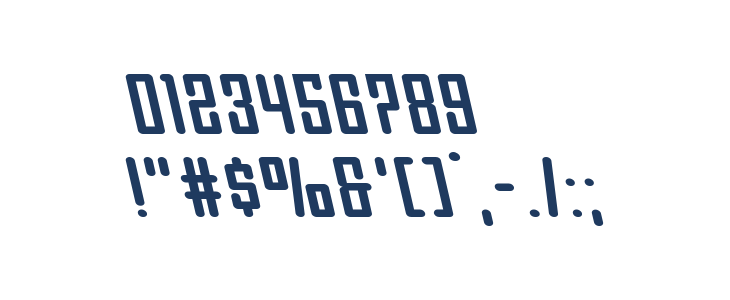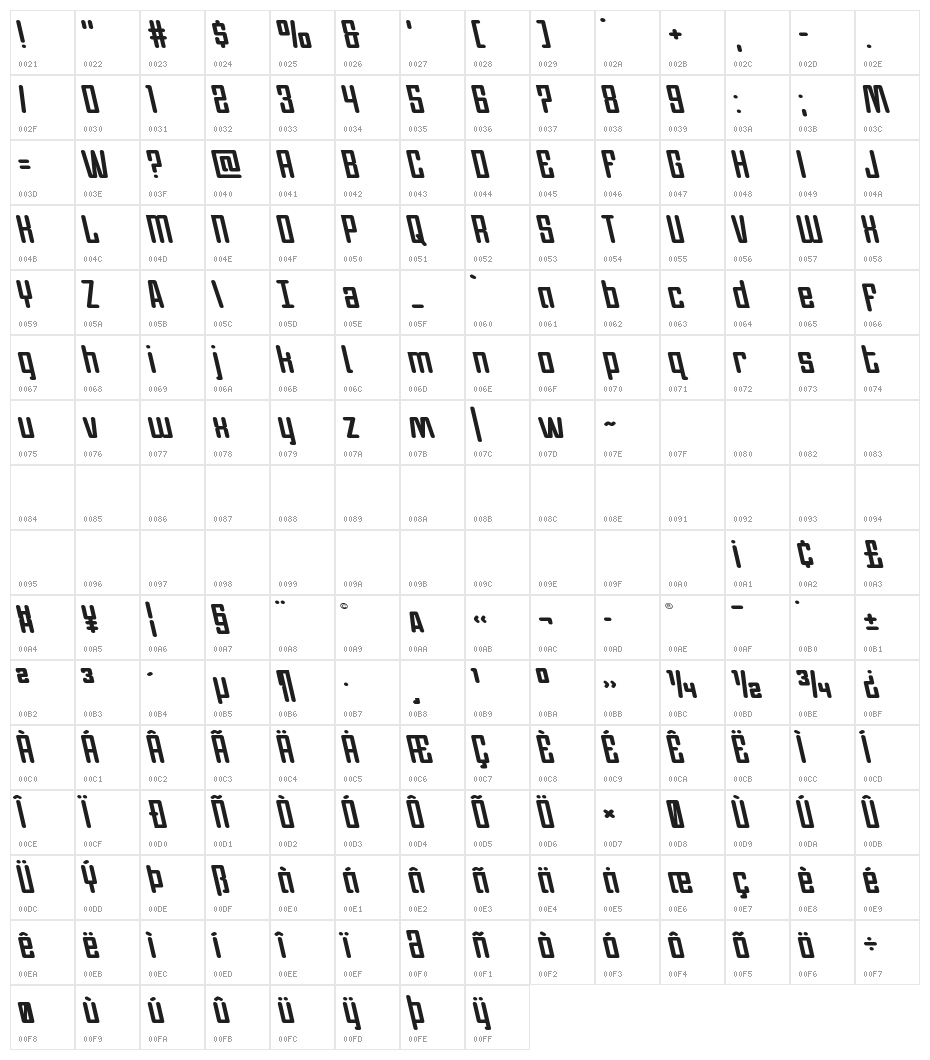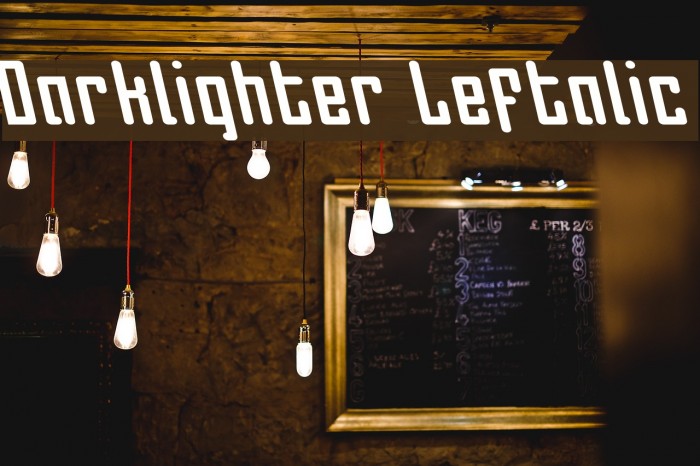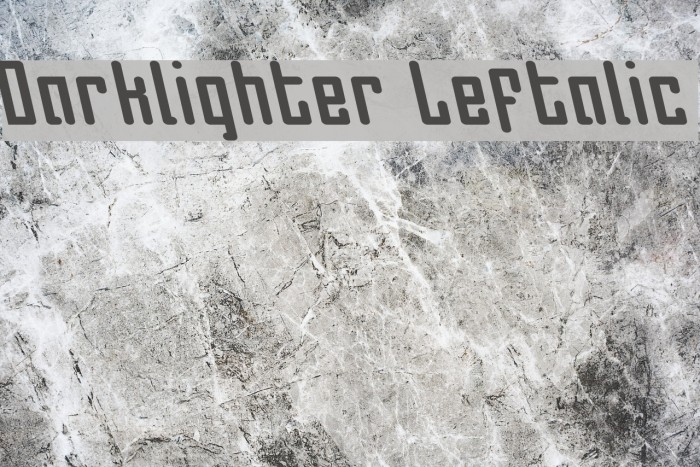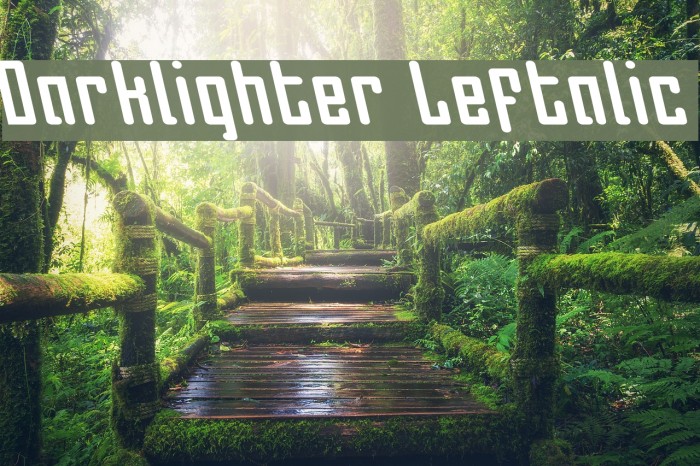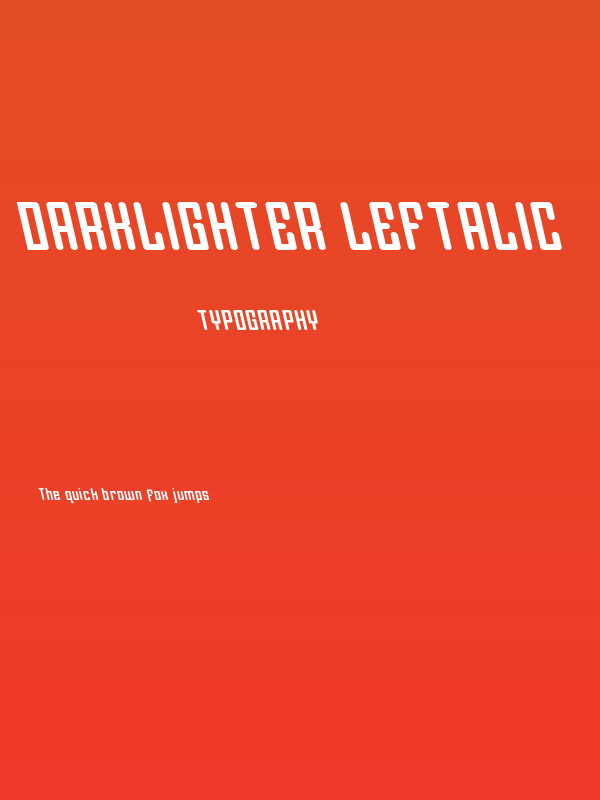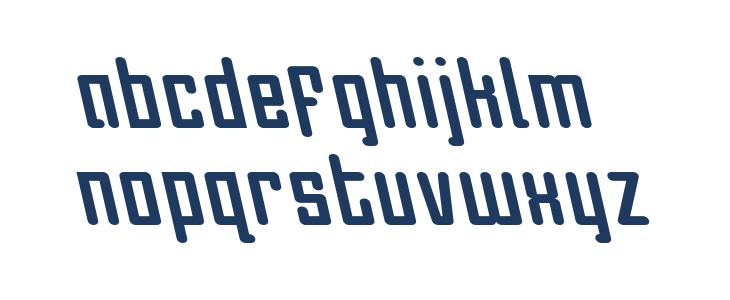
Darklighter Leftalic Font
Darklighter Leftalic Description
This font features a bold and modern design with a distinct leftward slant, giving it a dynamic and forward-moving appearance. The characters are uniformly thick, providing a strong presence on the page. The geometric shapes and clean lines contribute to its contemporary style, making it suitable for various digital and print applications. The uppercase and lowercase letters maintain a consistent style, while the numerals and special characters are designed to complement the overall aesthetic. This font's unique slant and boldness make it stand out, ideal for attention-grabbing headlines and branding.
| Proposed Projects | Ideal for branding, headlines, posters, and digital media where a modern and bold statement is needed. |